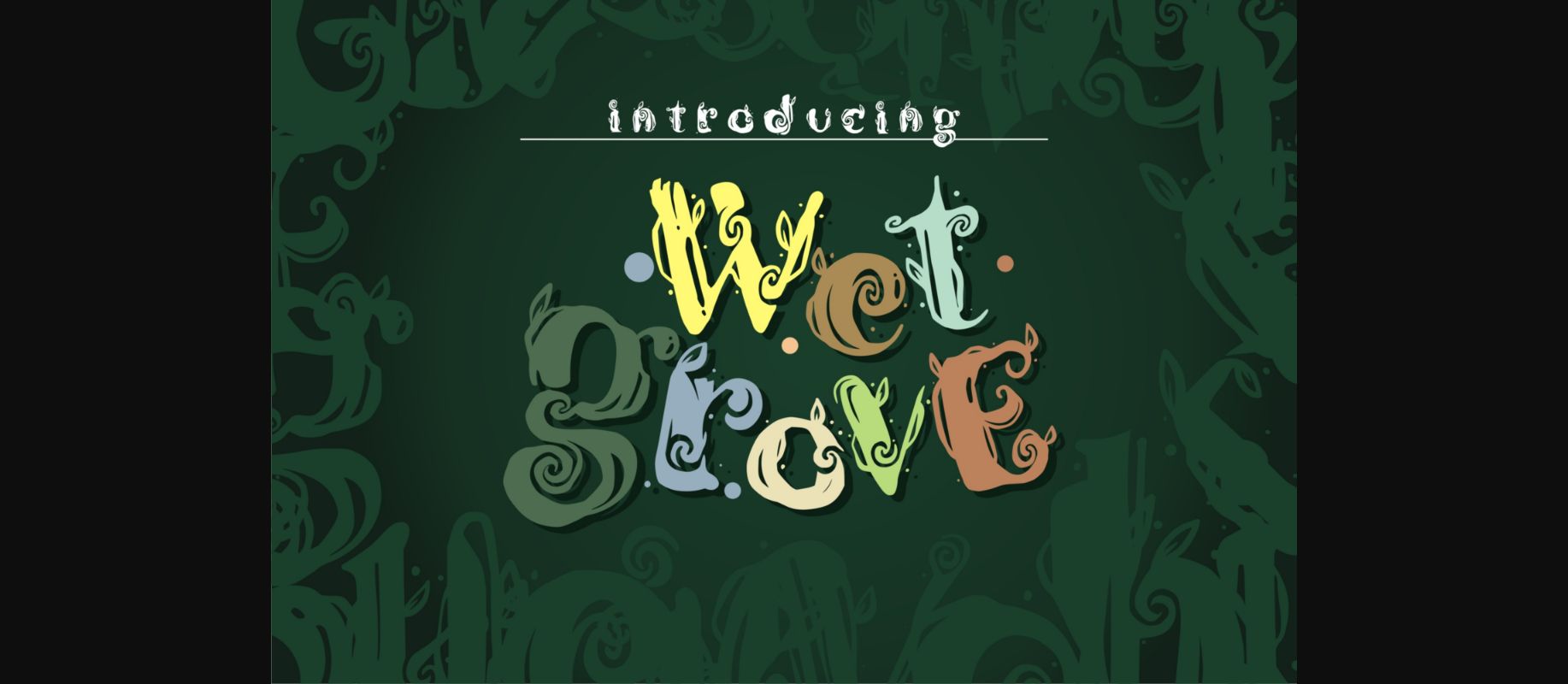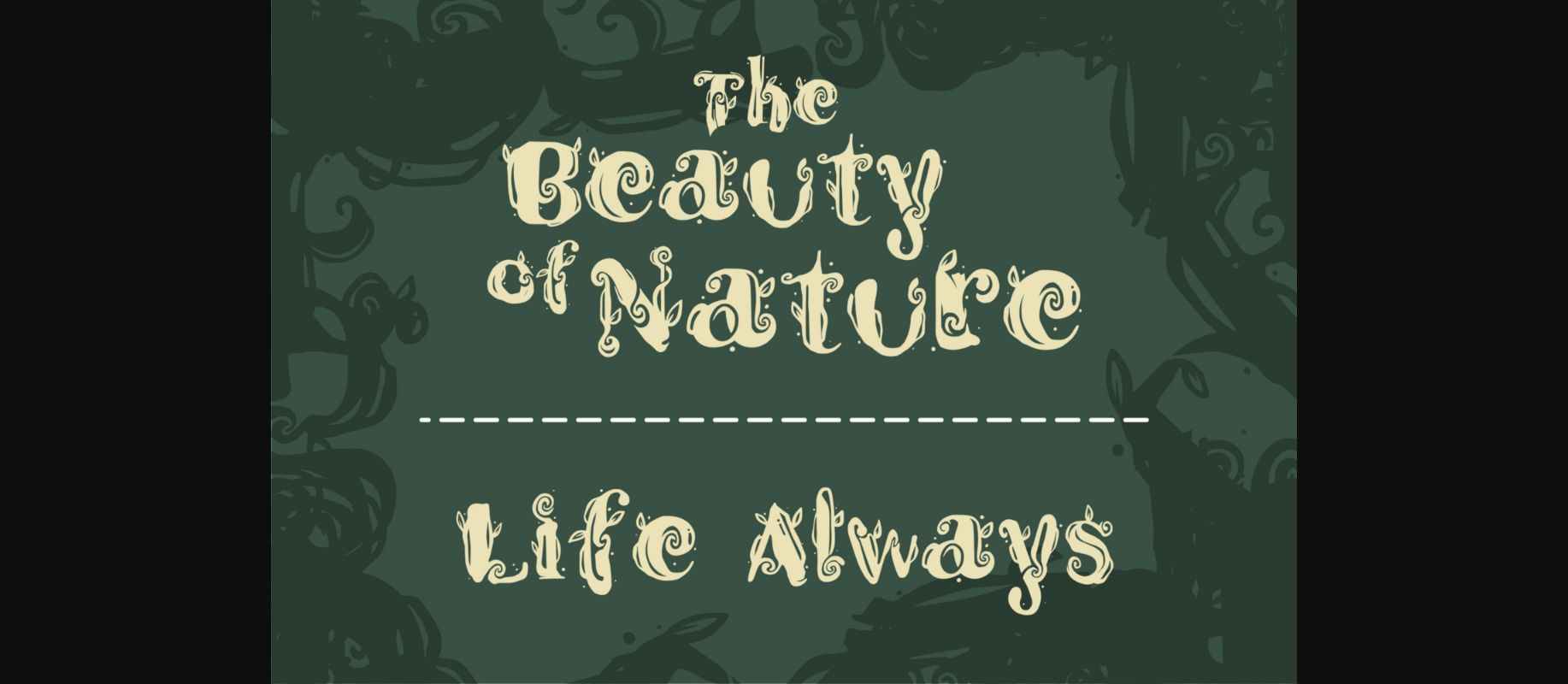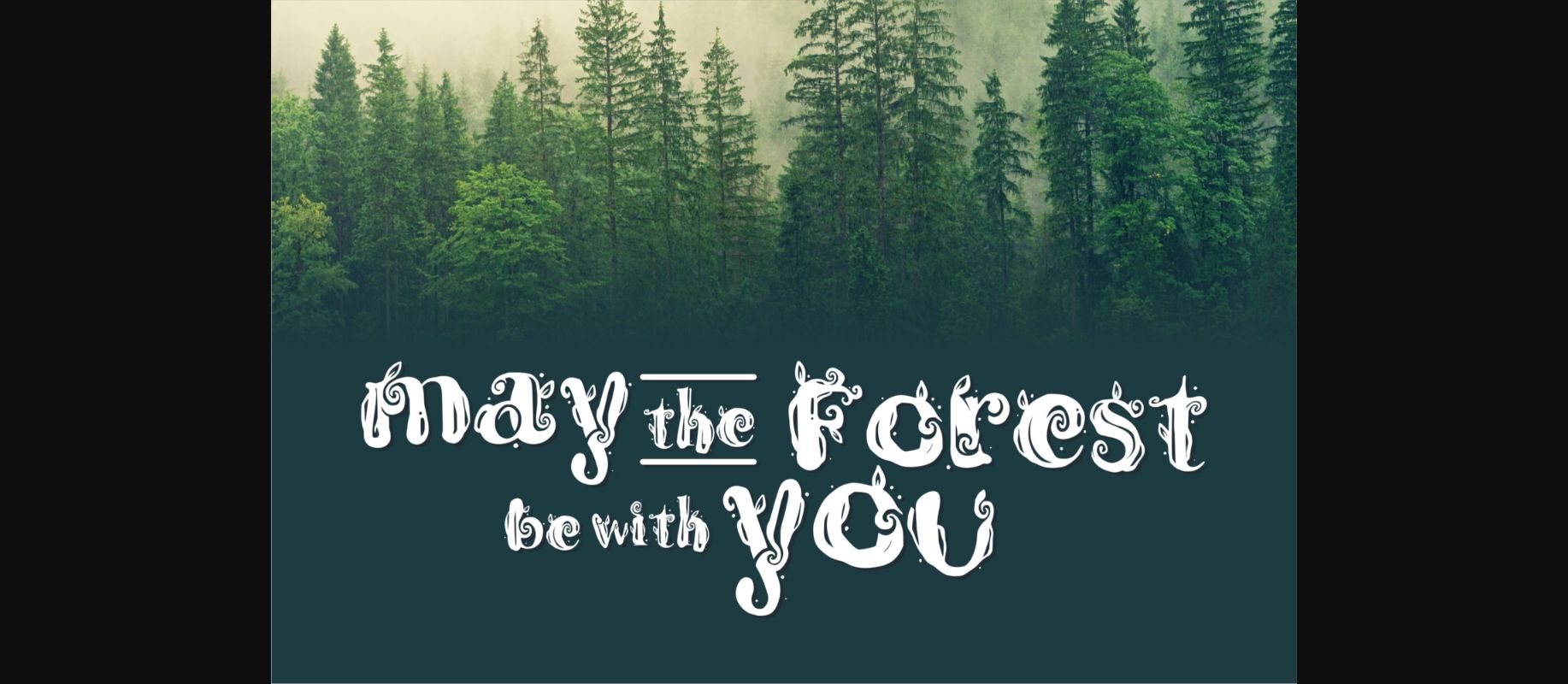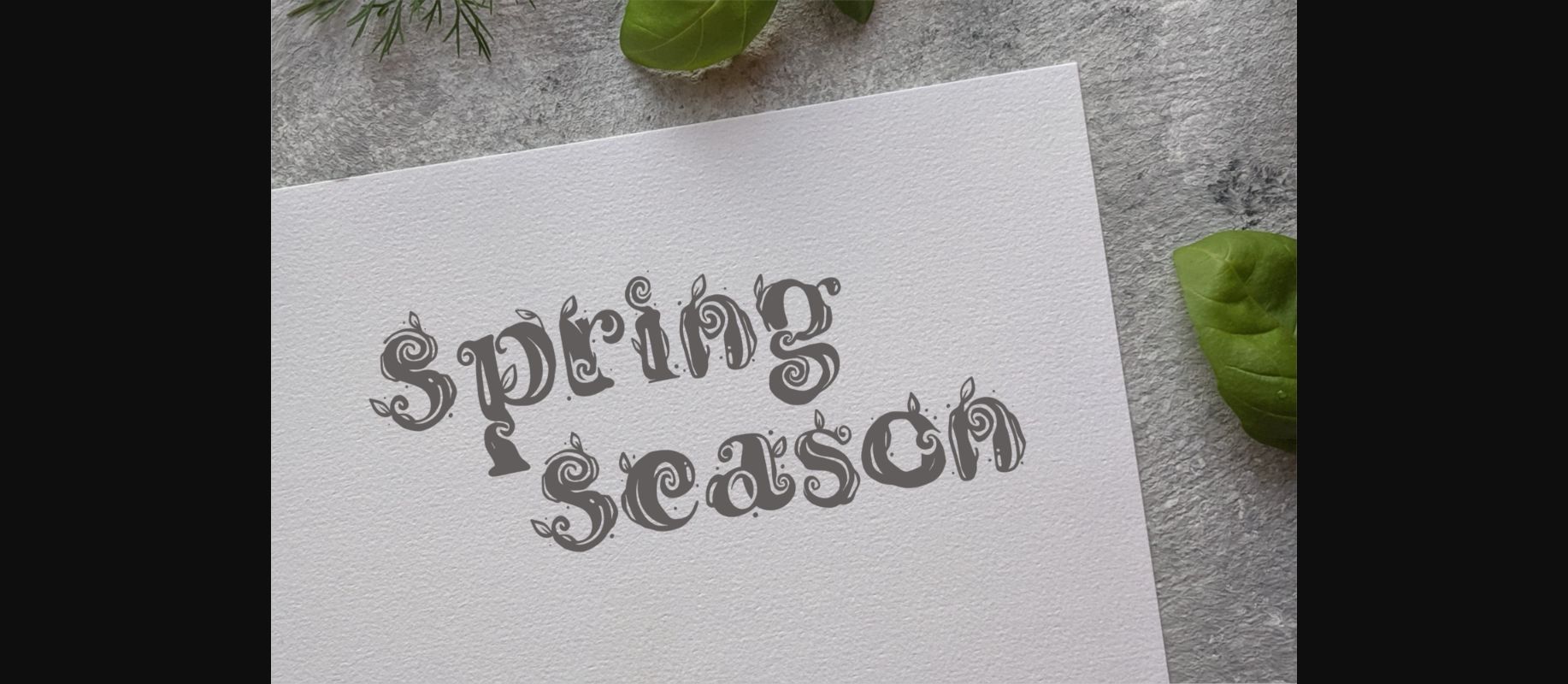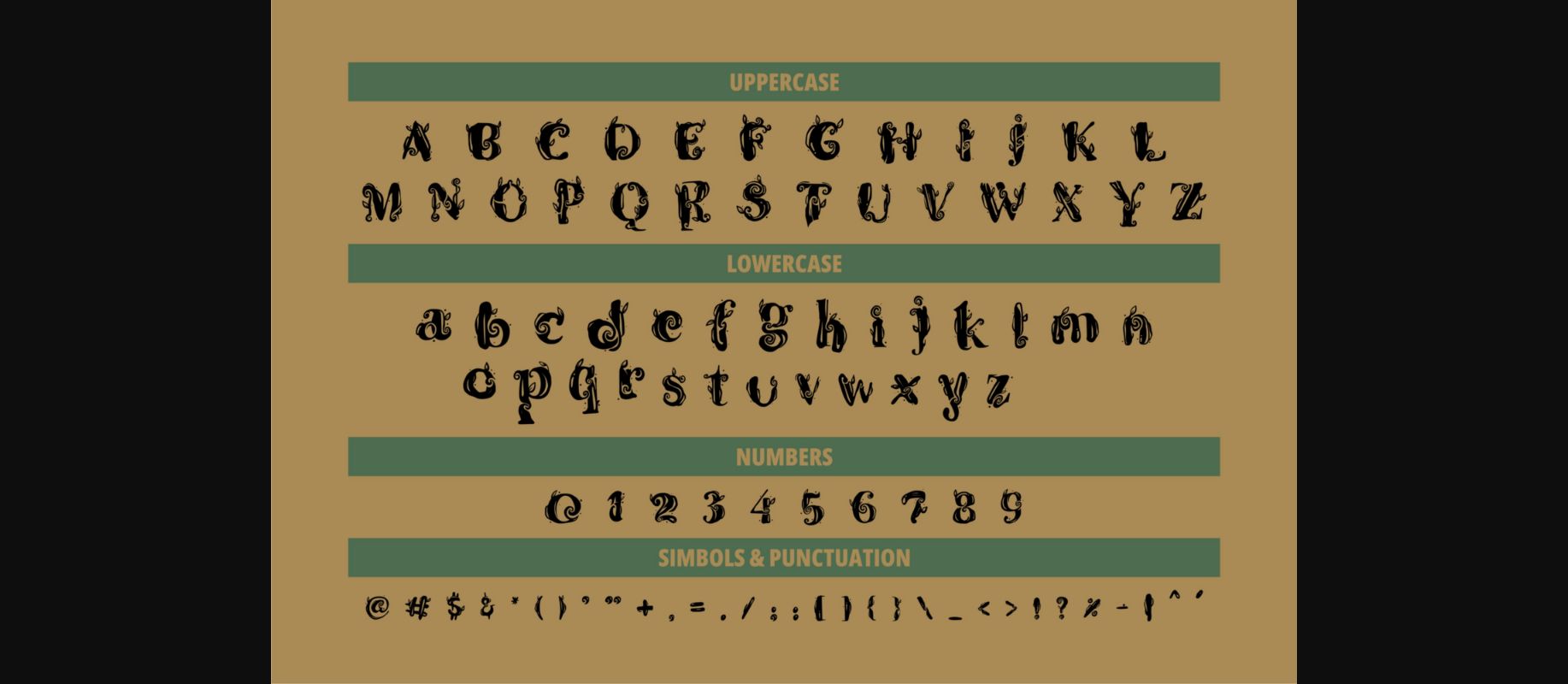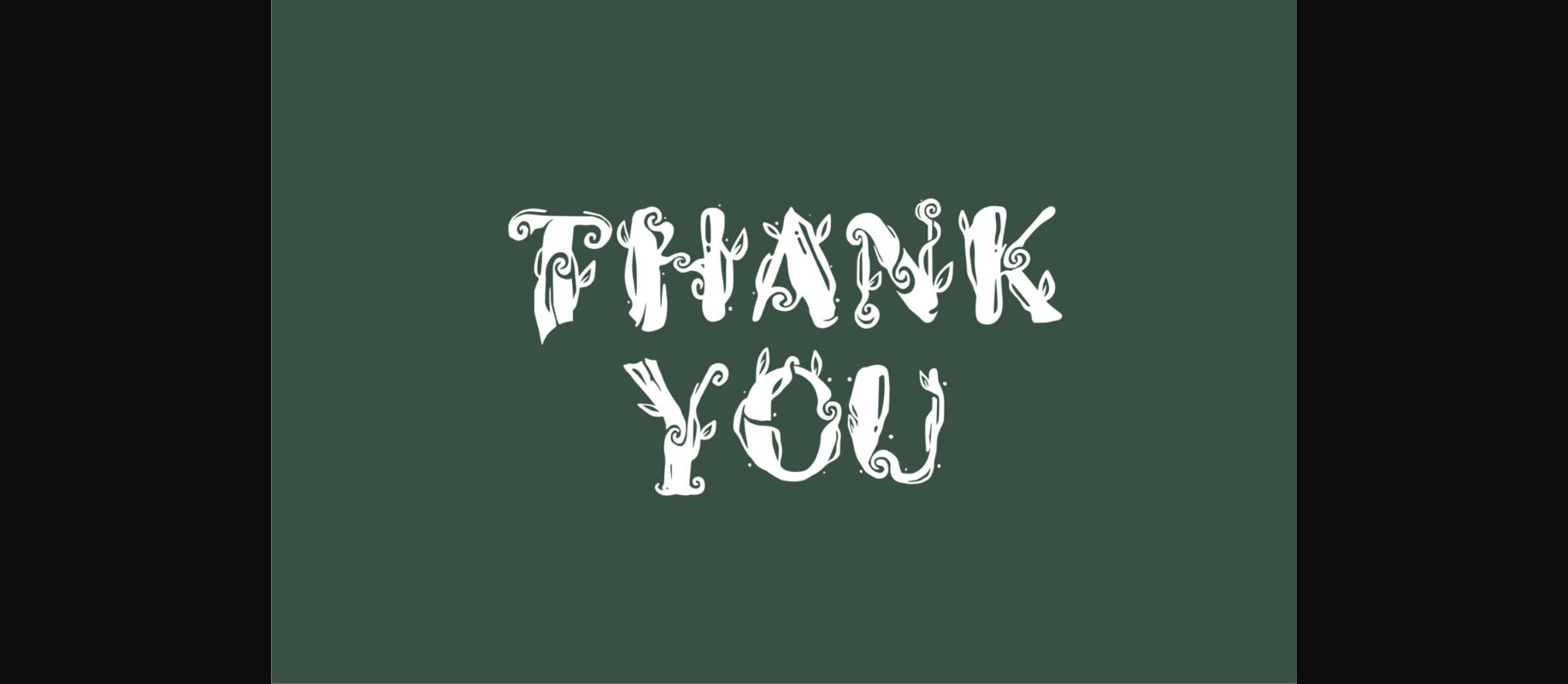
Wet Grove is a cute, quirky and friendly handwritten font. Whatever the topic, this font will be a wonderful asset to your font library, as it has the potential to enhance any creation.